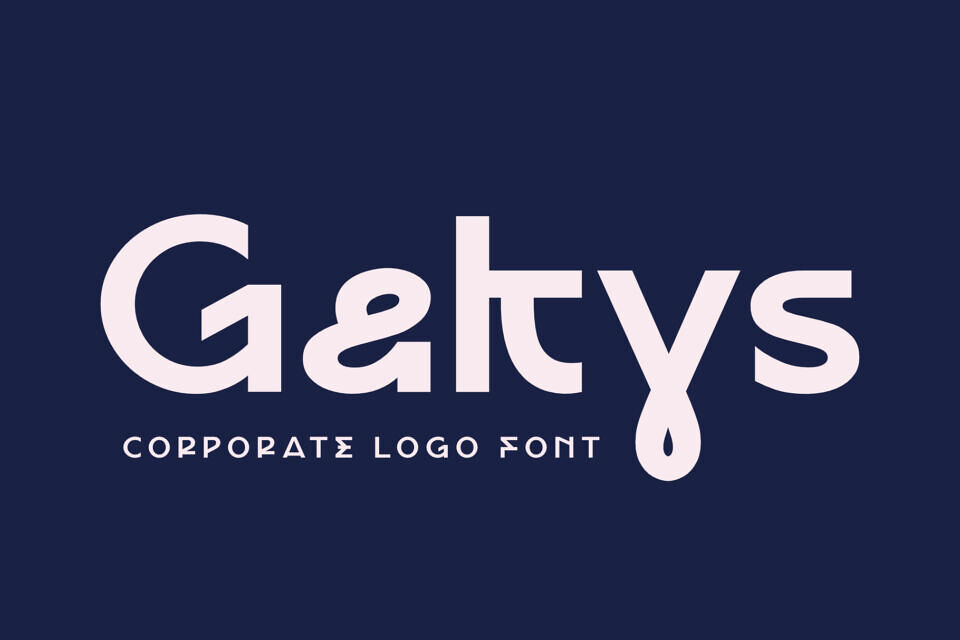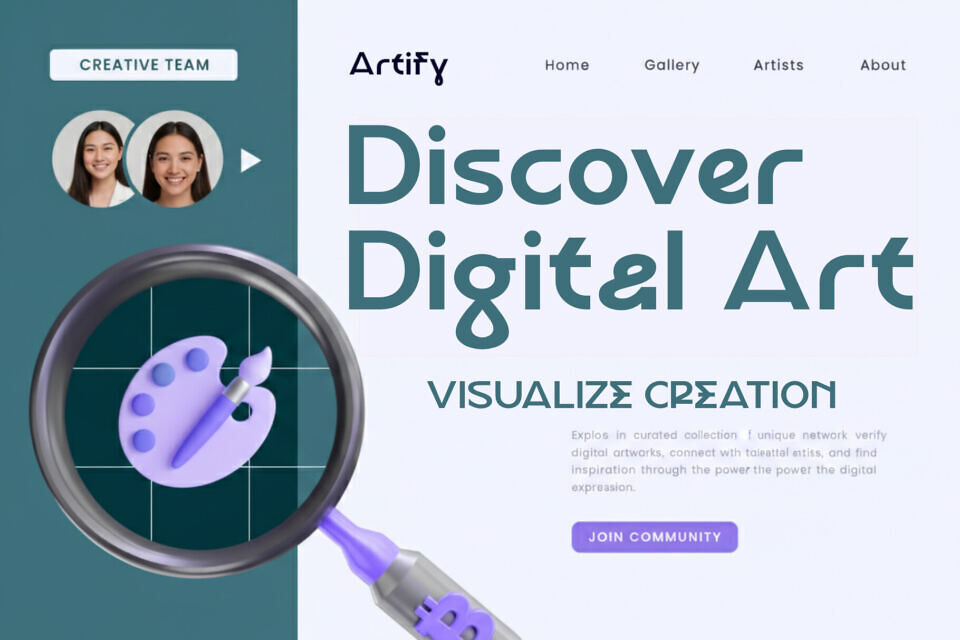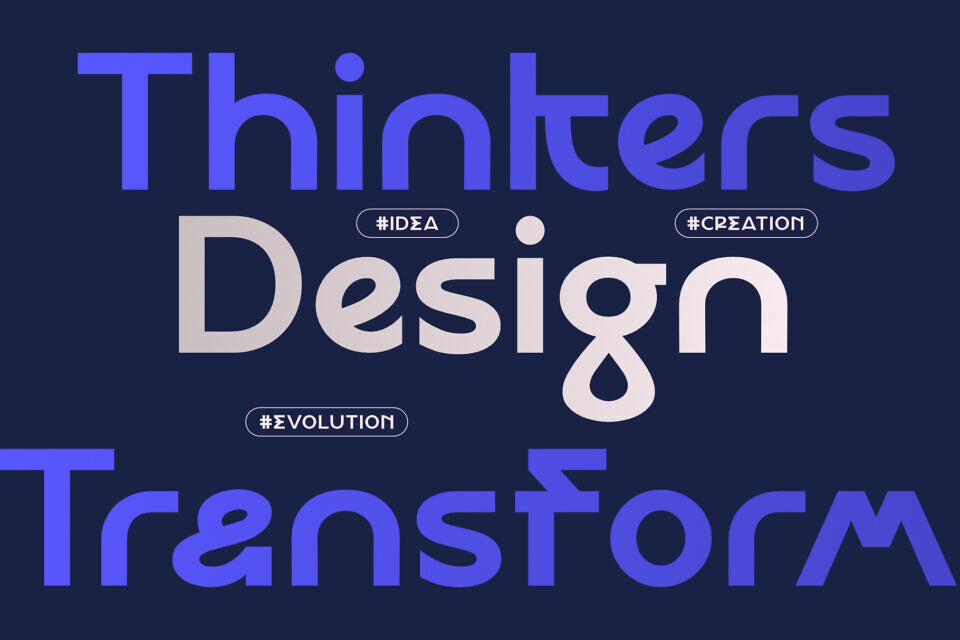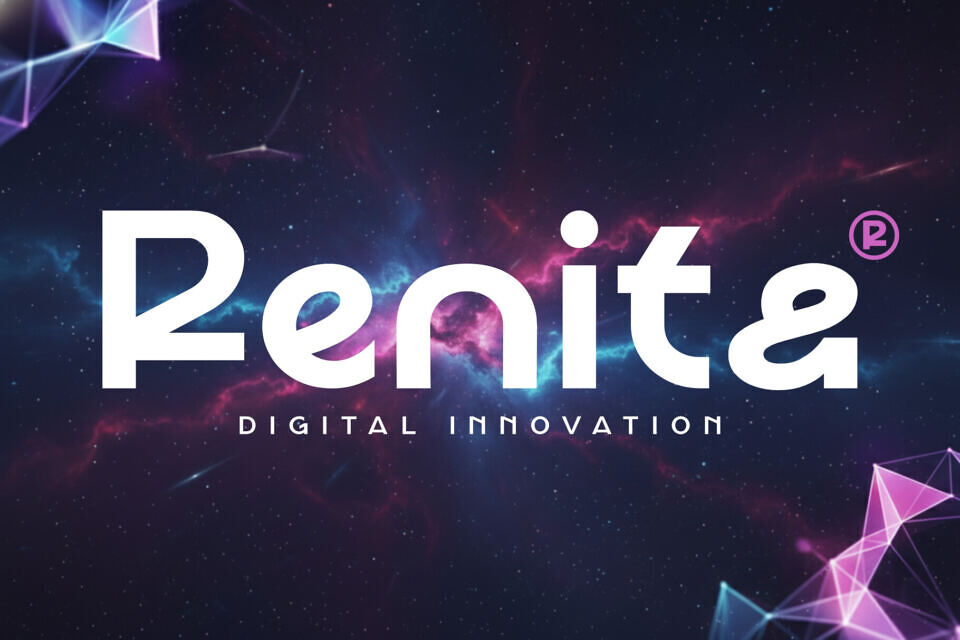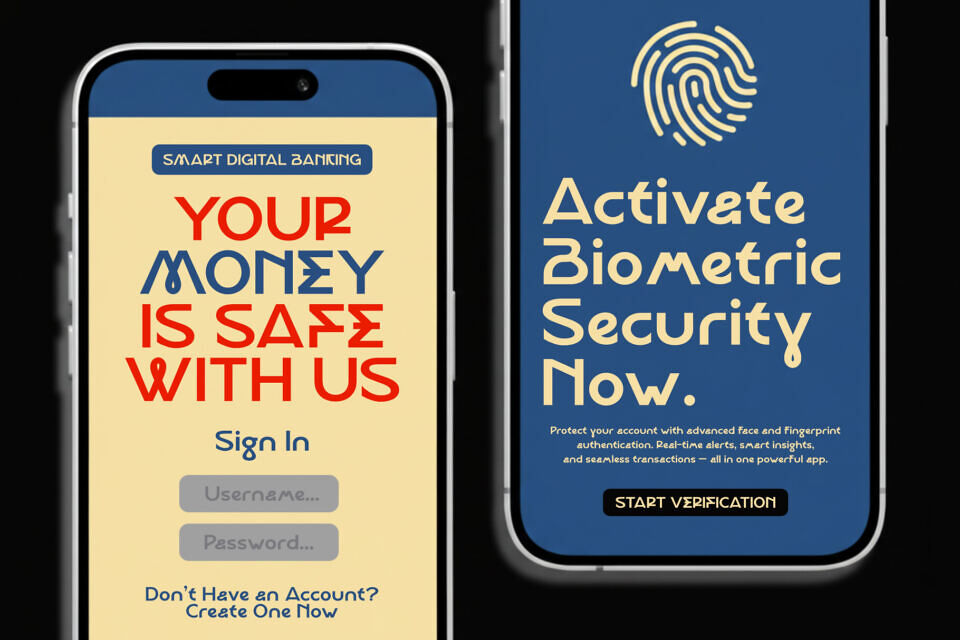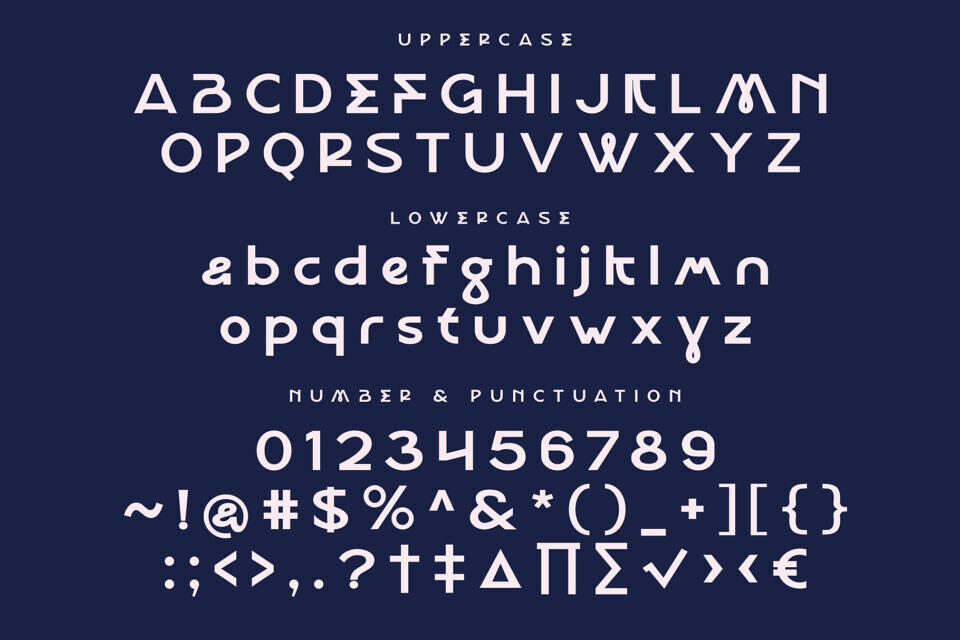
Gakys Font
Gakys is a modern corporate logo font designed to deliver a clean, confident, and professional identity. Featuring smooth geometric curves, balanced proportions, and distinctive letterforms, Gakys creates a strong visual presence while maintaining elegance and clarity.
Gakys is perfectly suited for corporate logos, business branding, technology companies, startups, financial institutions, premium services, and modern visual identities. Its versatile and timeless style ensures your brand stands out with professionalism and sophistication.